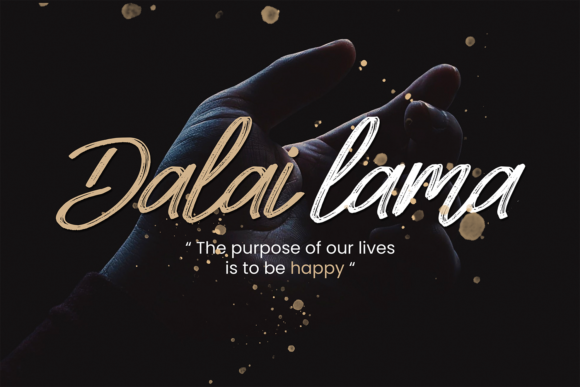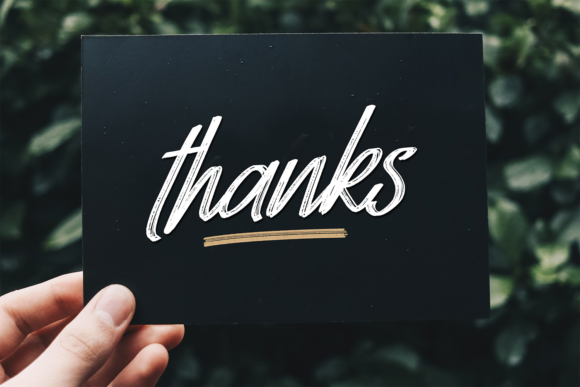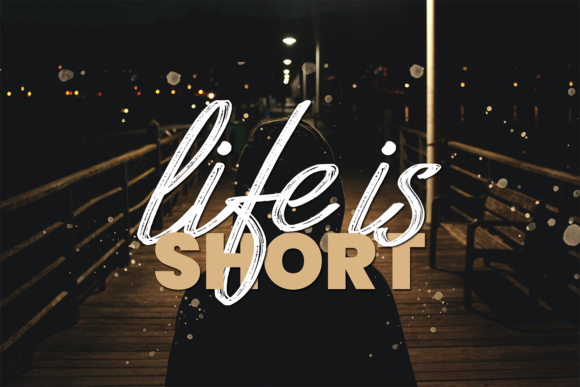
Nofela Font
About Nofela Font
Nofela is a bold brushed script font. This font reads as strong, confident, and dynamic and can add tons of nostalgic character to your designs.